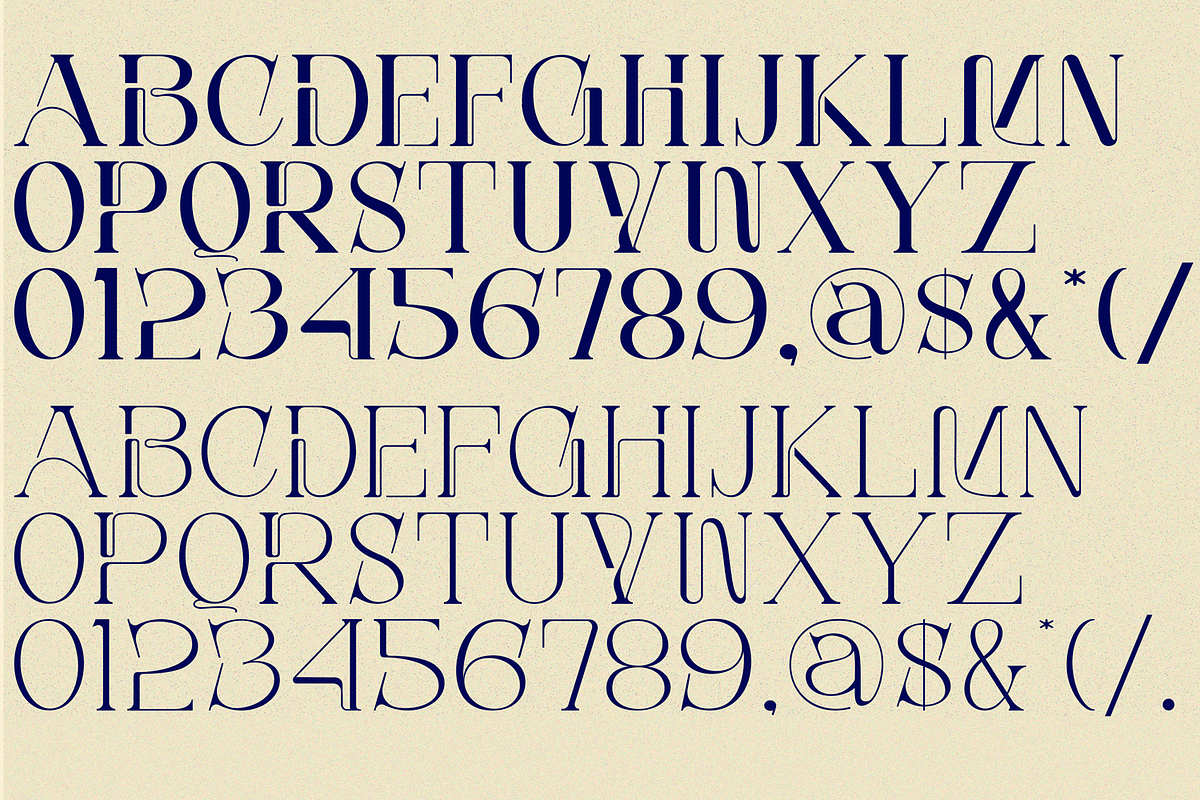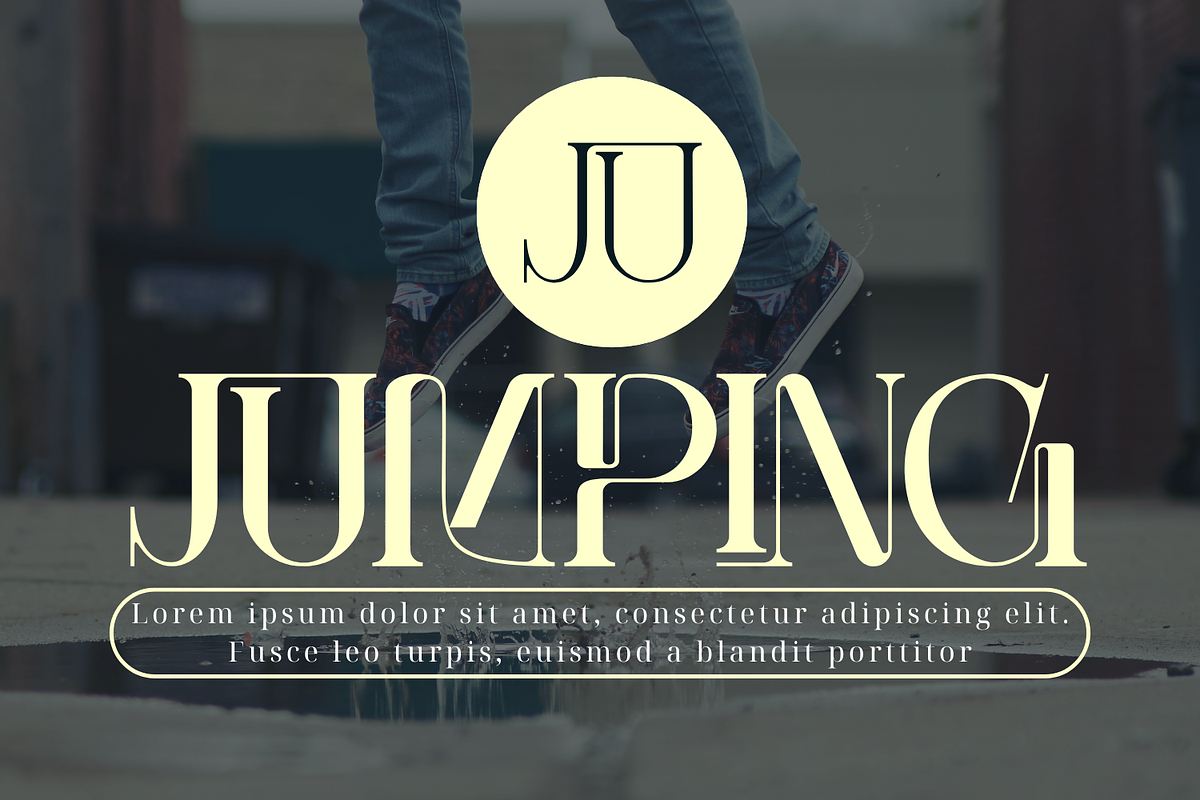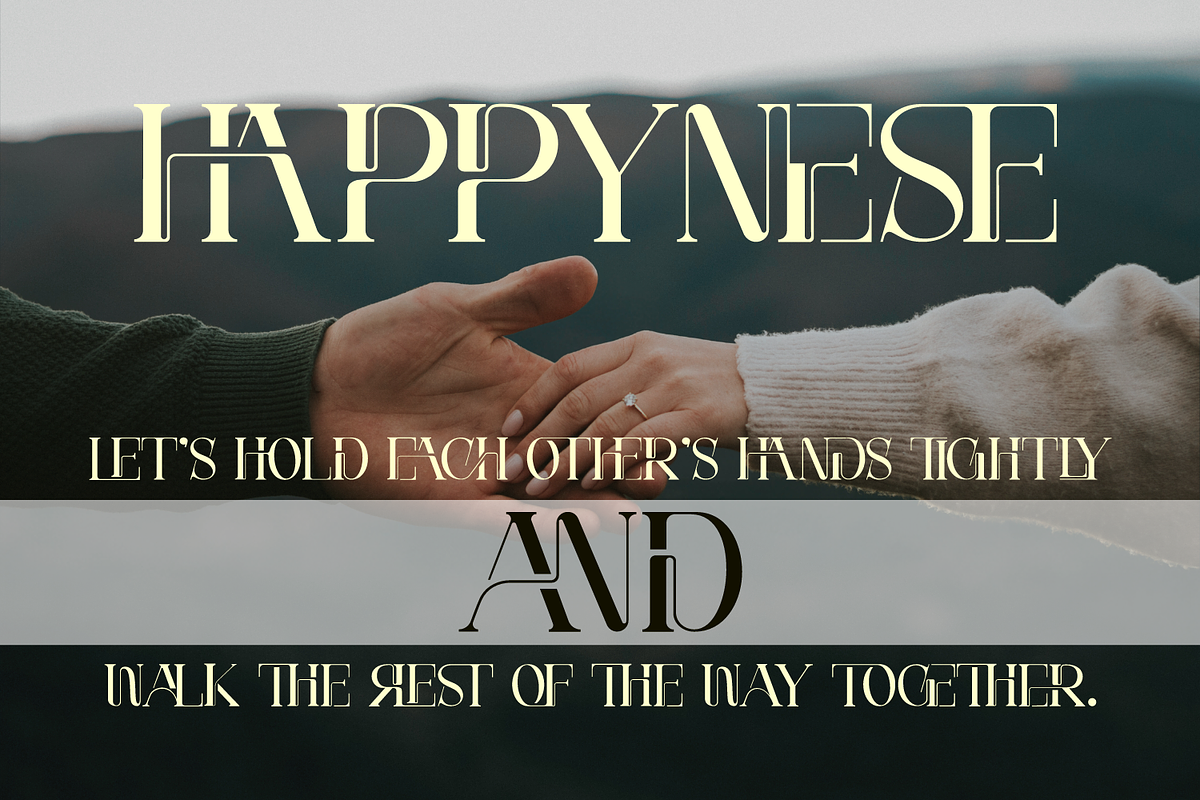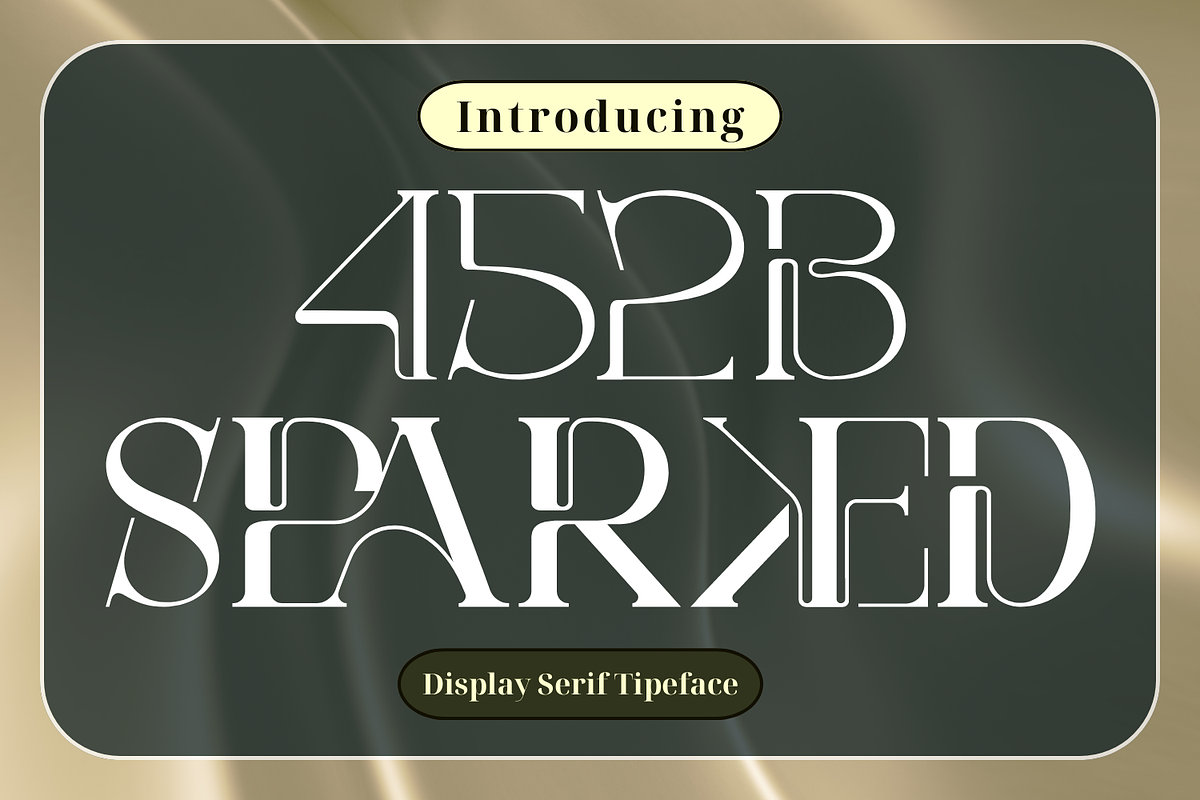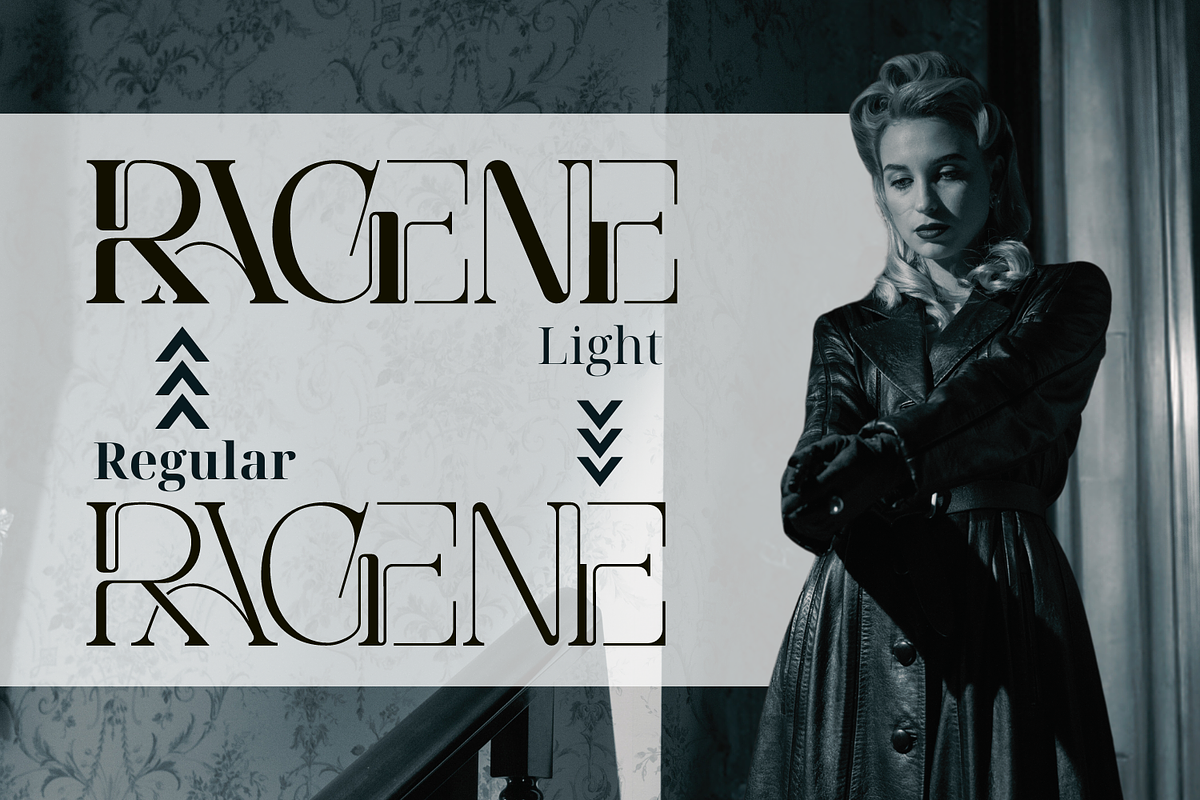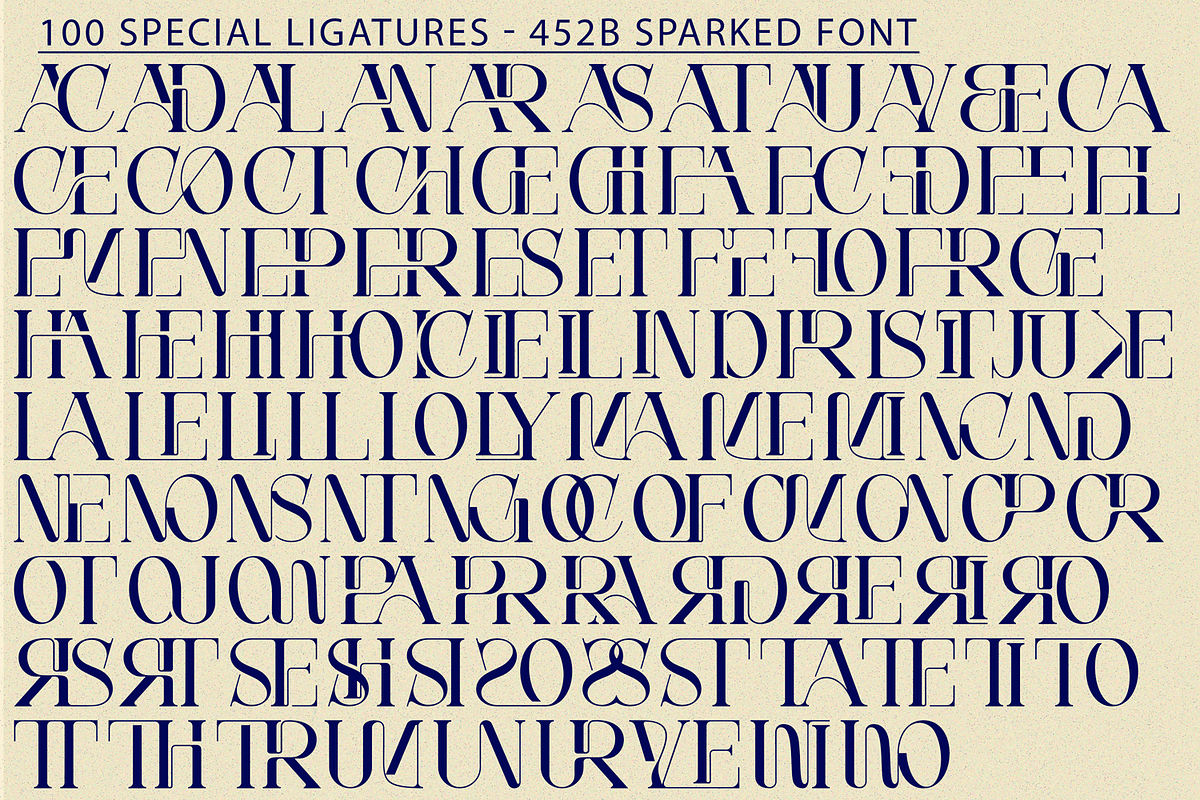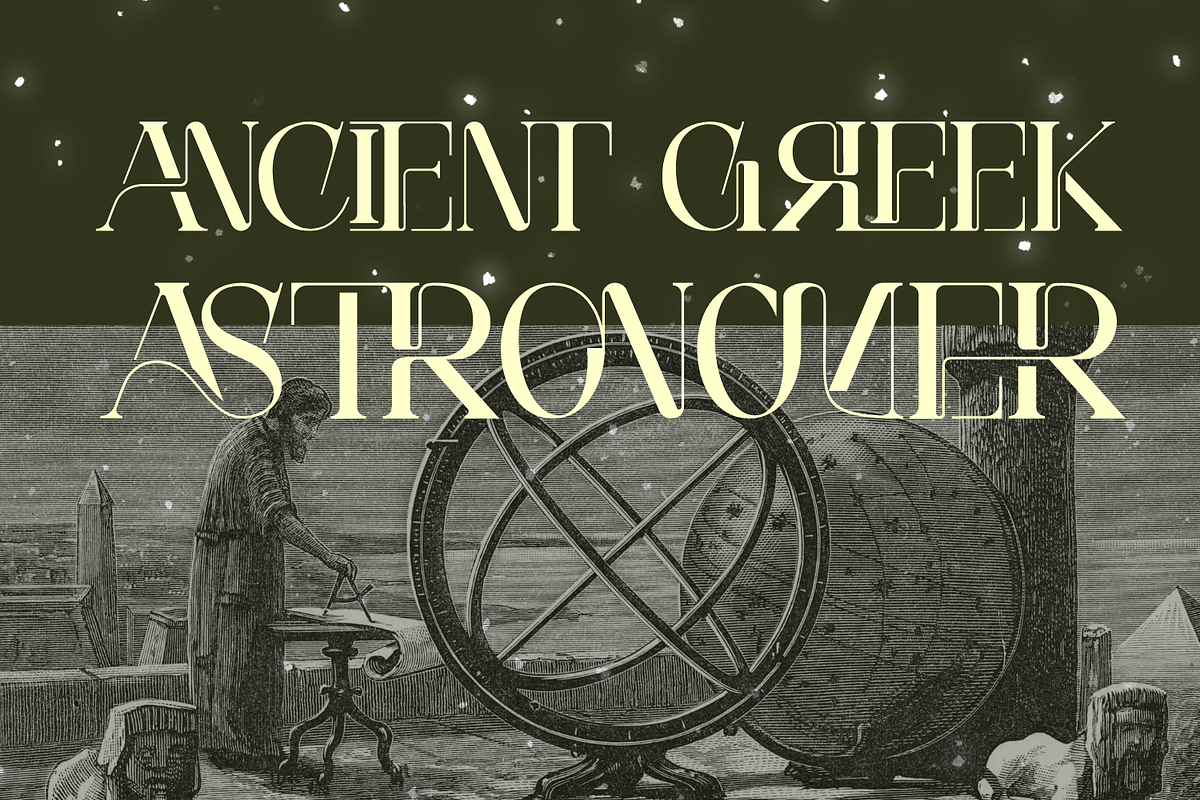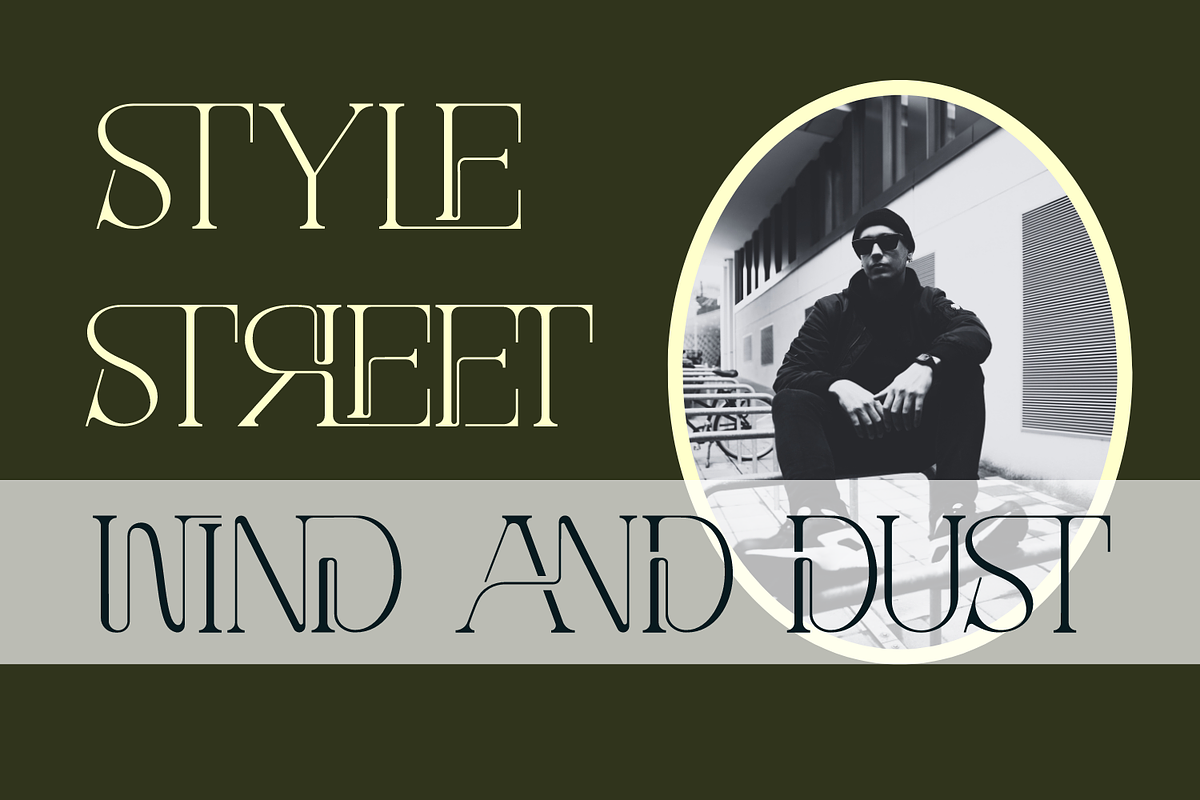
452B Sparked Font
452B Sparked Font is a striking serif display font that commands attention with its bold design and unconventional style. Crafted in uppercases, this font exudes a sense of drama and intrigue. Very suitable to be combined with invitation card designs, company logos, film titles, film names, business cards, book titles, brand names and various other designs.
452B Sparked was built with OpenType features and includes 100 ligatures, alternate, numbers, punctuation, and it also supports other languages.
AC AD AL AN AR AS AT AU AV BE CA CE CH CO CT DE DI EA EC ED EE EL EM EN EP ER ES ET FE FO FR GE HA HE HI HO IE IC IL IN IO IR IS IT JU KE LA LE LI LL LO LY MA ME MI NC ND NE NG NO NT NS OC OF OM ON OO OP OR OT OU OW PA PR RA RD RE RI RO RS RT SE SH SI SO SS ST TA TE TH TI TO TR TT UM UN UR VE WI WO
This font also included full set of:
- Uppercase letters
- Special Ligatures